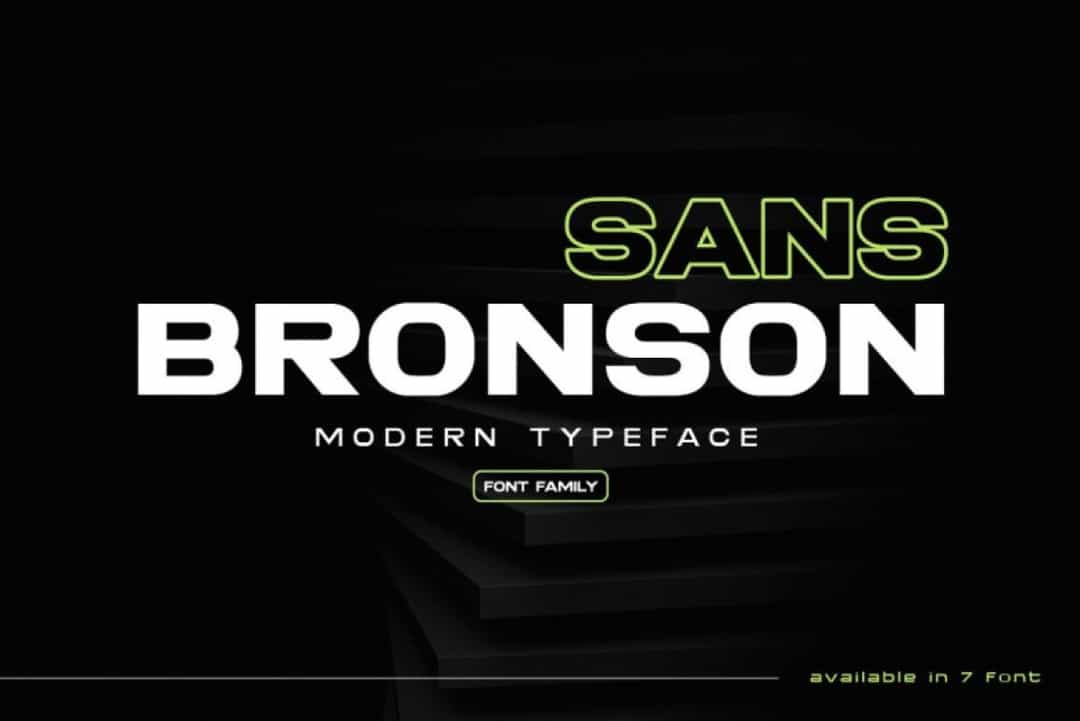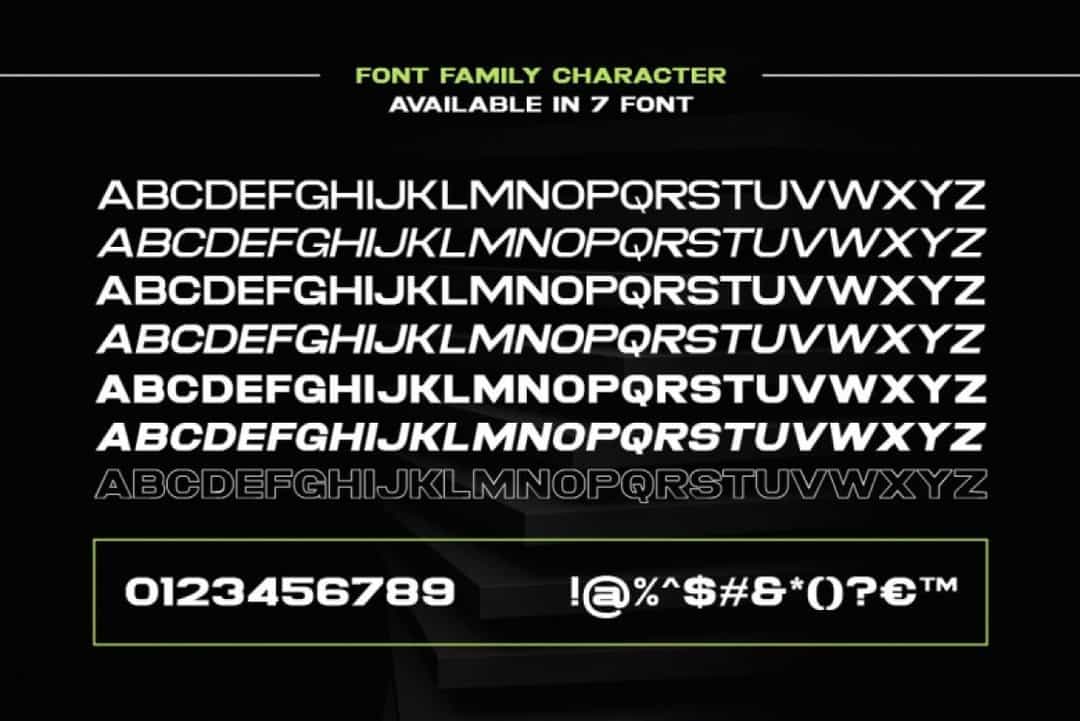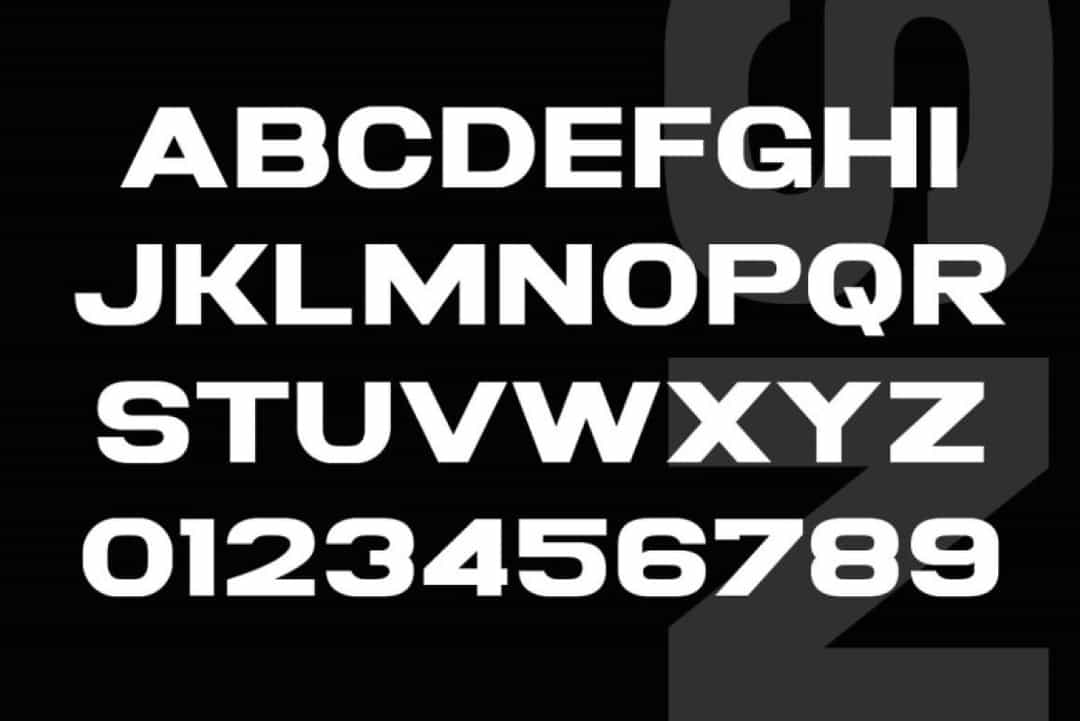
Bronson Font is a sans serif type family available in seven weights. Distinguished by a large body with strong contrast features, the Bronson font brings modernity when combined with vibrant colours. Professionally designed and shaped, it boasts crisp elegance in design that fits seamlessly into various designs that demand unique styles.